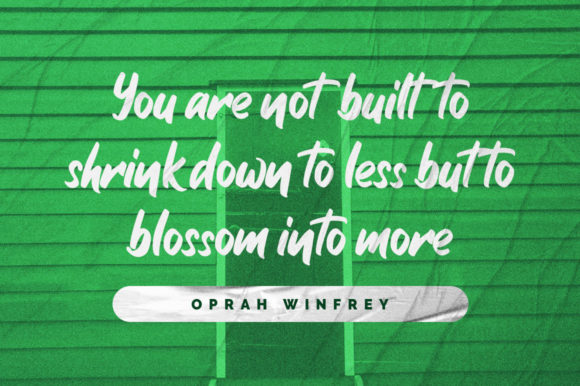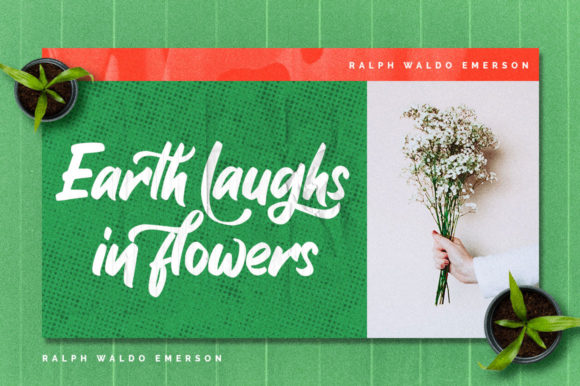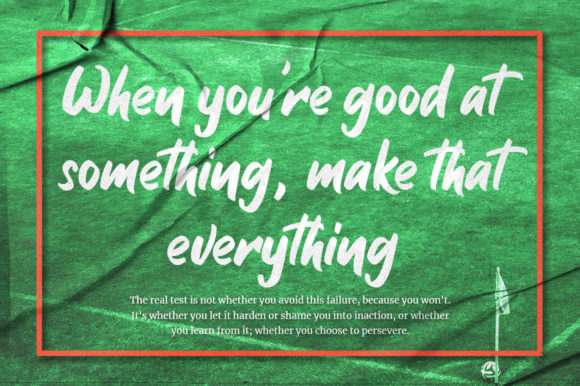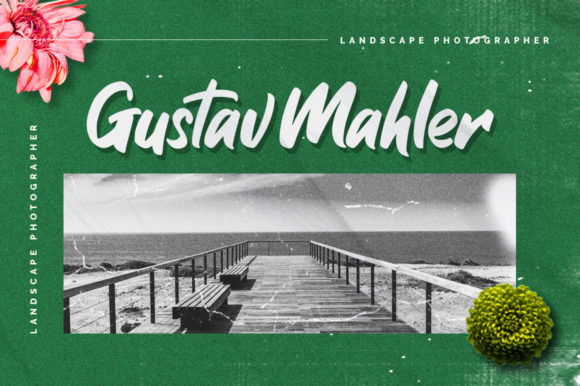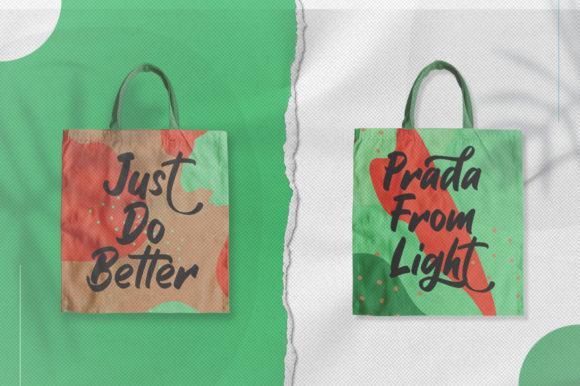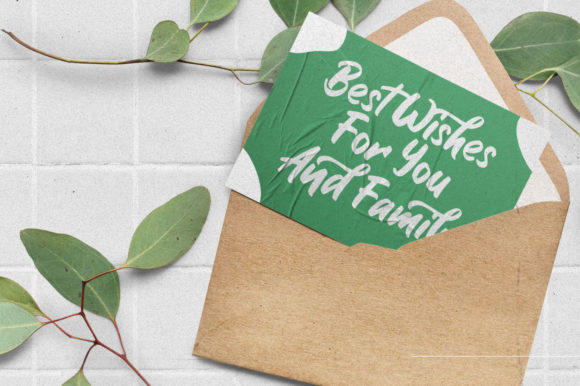
Introducing Gojacky Font: Elevate Your Designs with a Stylish and Bold Handwritten Touch
Are you tired of using the same old fonts for your design projects? Do you want to add a touch of personality and style to your headlines and logotypes? Look no further than Gojacky Font, a gorgeous and bold handwritten font that’s perfect for designers and crafters looking to elevate their work.
The Power of Gojacky Font
Gojacky Font is crafted to give your designs a strong, confident, and dynamic feel. With its bold and expressive letterforms, this font reads as a statement piece that’s sure to grab attention. Whether you’re working on a logo, a poster, or a social media graphic, Gojacky Font is the perfect choice for adding a touch of personality and style.
One of the standout features of Gojacky Font is its nostalgic character. This font has a timeless quality that evokes memories of classic designs from the past, making it perfect for projects that require a retro or vintage feel. At the same time, Gojacky Font is modern and fresh, ensuring that your designs will feel current and on-trend.
PUA Encoding: Easy Access to Beautiful Glyphs and Swashes
Gojacky Font is PUA (Private Use Area) encoded, which means that you can access all of the beautiful glyphs and swashes with ease. This encoding allows you to easily navigate the font’s extensive character set, making it simple to find the perfect glyph or swash to enhance your design.
With Gojacky Font, you can add flourishes and embellishments to your designs with just a few clicks. The font’s glyphs and swashes are carefully crafted to complement the font’s bold and expressive letterforms, ensuring that your designs will look polished and professional.
Gojacky Font is perfect for designers and crafters who want to add a touch of personality and style to their work. Whether you’re working on a commercial project or a personal craft, this font is sure to impress. Here are just a few ways you can use Gojacky Font:
- Logos and branding: Use Gojacky Font to create a bold and memorable logo that will help your brand stand out.
- Posters and flyers: Add a touch of personality and style to your posters and flyers with Gojacky Font’s bold and expressive letterforms.
- Social media graphics: Use Gojacky Font to create eye-catching social media graphics that will help your brand stand out.
- Crafting projects: Add a touch of elegance and sophistication to your crafting projects with Gojacky Font’s beautiful glyphs and swashes.
Why Choose Gojacky Font?
There are many fonts on the market that claim to be bold and stylish, but Gojacky Font stands out from the crowd. Here are just a few reasons why you should choose Gojacky Font for your next design project:
- Unique and distinctive: Gojacky Font has a unique and distinctive style that’s sure to grab attention.
- High-quality design: Gojacky Font is carefully crafted to ensure that every letterform and glyph is of the highest quality.
- Easy to use: Gojacky Font is PUA encoded, making it easy to access all of the beautiful glyphs and swashes.
- Versatile: Gojacky Font can be used for a wide range of design projects, from logos and branding to posters and social media graphics.